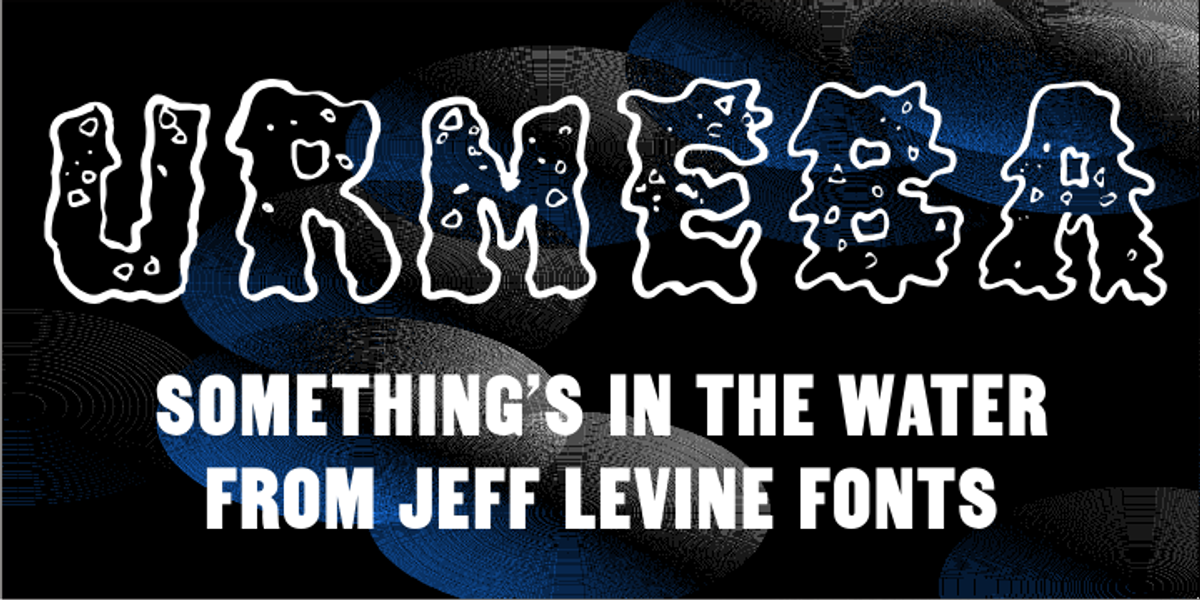
Urmeba JNL
Urmeba JNL has an odd history. Originally conceived a few years back by Ray Larabie of Typodermic Fonts as a, well, 'barf' font, this limited-character type design was revised by Jeff Levine into a less-offensive ideathat of friendly little amoebas (such as you'd find in a glass of water).
No kerning has been applied to the letters in order to allow for a more free-form look.